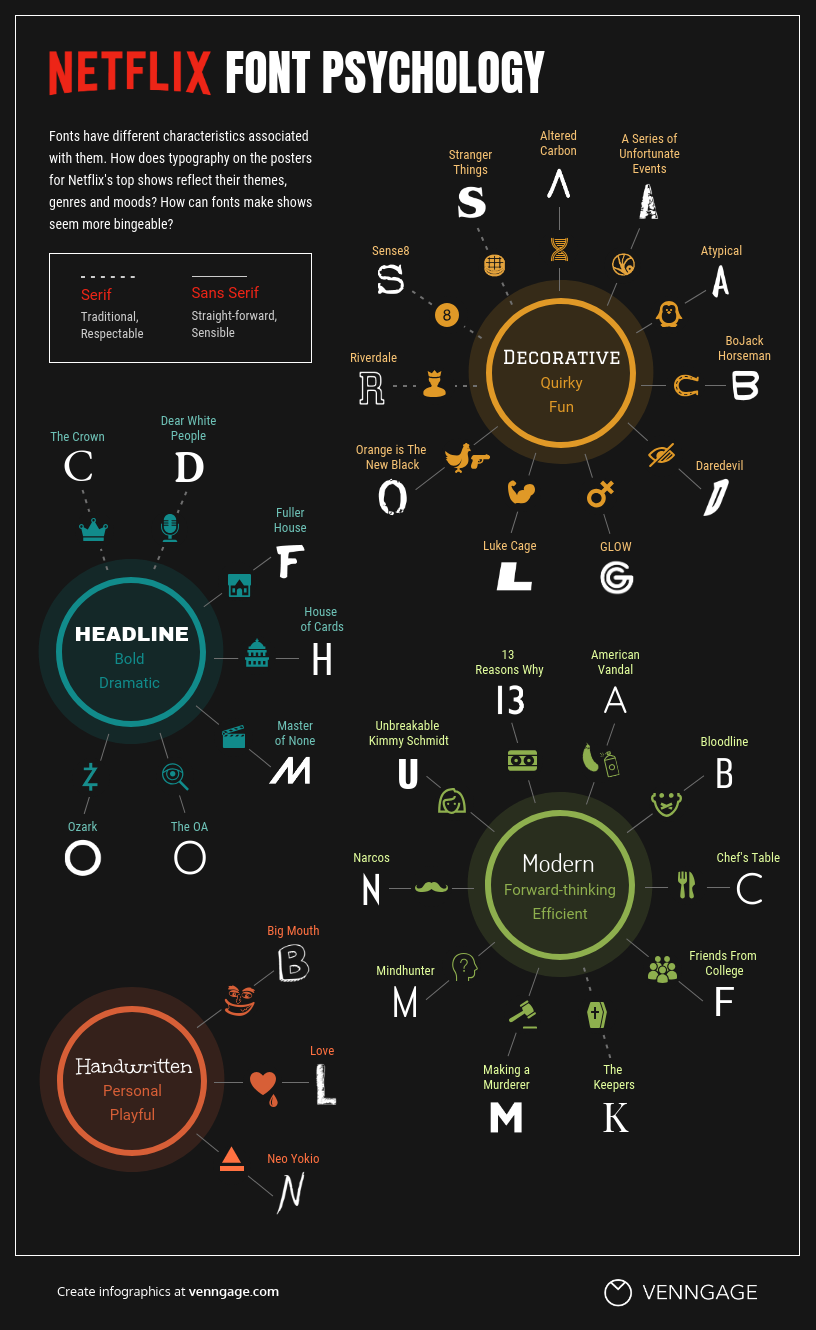
Font psychology sounds complicated, but it basically refers to what sort of font you use in your graphic design, and what that says about the intended meaning of your design.
For example, a curly and decorative font would mean that something was fancy, or special. And a font with sharp edges and drips off the bottom of the letters would imply that you’re talking about something scary.
Venngage studied Netflix’s top 50 shows to learn about font psychology in pop culture, and analyzed trends and meanings in those fonts. Check out the infographic below for a summary of the findings:
So what does these mean for marketers? Well for a start, we know in digital marketing that audience attention spans are short and competition for that attention is high.
In Netflix’s case, certain fonts are used to instantly let potential viewers know what to expect from that show, and content marketers should take a similar approach.
For the font from Riverdale, a teen drama, Netflix have chosen a varsity style font so viewers expect a show that takes place in a college or high school. And with Big Mouth, an animated comedy, a playful hand-drawn style font is used so viewers aren’t expecting anything serious.
We can apply these lessons to our content by thinking about what the viewer (or audience, or client, or customer etc) of that content will expect. If you’re advertising an e-book or a webinar you want to be seen as authoritative, so using a hand drawn font probably isn’t right for that occasion. You’d be looking to use something more in line with the ‘modern’ category of font.
Font psychology isn’t an exact science. Fonts alone don’t make people see a poster and think, “I could spend the next 20 hours watching this show.” But managing viewer expectations based on the font you use is an easy way to take control and ensure that viewers know what to expect when they choose a program to watch. And in content marketing, you should help your audience know what to expect when picking a font in order to ensure maximum impact.